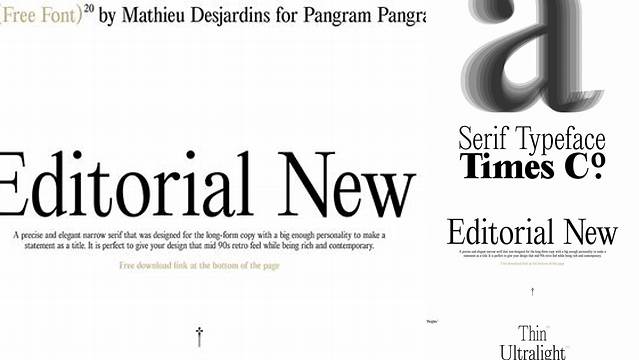
PP Editorial: Free Font Download For Stunning Designs
Are you guys on the lookout for a fresh and stylish font to spice up your design projects? Well, you've landed in the right spot! Let's dive into the world of PP Editorial, a brand-new font family that's making waves in the design community. This font is not only visually appealing but also available for free download. In this article, we'll explore everything you need to know about PP Editorial, from its unique features and design inspirations to how you can use it to enhance your creative endeavors. So, buckle up and get ready to discover a font that might just become your new favorite!
What Makes PP Editorial Special?
PP Editorial is more than just another font; it's a carefully crafted typeface designed to bring a touch of elegance and modernity to any project. This font family boasts a versatile range of weights and styles, making it suitable for a wide array of applications, from editorial layouts and branding to web design and user interfaces. Its clean lines and balanced proportions ensure readability, while its subtle quirks add character and charm. Whether you're working on a sleek corporate identity or a vibrant magazine spread, PP Editorial has the flexibility to adapt and shine.
One of the key features of PP Editorial is its attention to detail. The designers have meticulously crafted each glyph to ensure consistency and harmony across the entire family. This means that whether you're using the light or bold weights, you'll find a cohesive and polished look. The font also includes a comprehensive set of ligatures and alternates, allowing you to add a touch of uniqueness and flair to your typography. These subtle details can make a big difference, elevating your designs from good to great. Furthermore, the font supports a wide range of languages, making it a truly global typeface.
The inspiration behind PP Editorial is rooted in the classic editorial designs of the past, but with a contemporary twist. The font draws from the timeless elegance of traditional serif typefaces while incorporating modern sensibilities. This blend of classic and contemporary elements gives PP Editorial a distinct personality, making it both familiar and fresh. The designers have also paid close attention to the technical aspects of the font, ensuring that it performs well across different media and platforms. This means that you can use PP Editorial with confidence, knowing that it will look great in print, on the web, and in digital applications.
How to Use PP Editorial in Your Projects
Now that we've explored what makes PP Editorial special, let's talk about how you can use it in your projects. This font family is incredibly versatile, making it suitable for a wide range of design applications. Whether you're working on a website, a branding project, or a print publication, PP Editorial can help you create visually stunning and effective designs. Here are some ideas to get you started:
Branding
When it comes to branding, typography plays a crucial role in conveying your brand's personality and values. PP Editorial can be an excellent choice for creating a sophisticated and modern brand identity. Its clean lines and balanced proportions make it ideal for logos, wordmarks, and other branding elements. Consider using the bolder weights for headlines and the lighter weights for body text to create a visual hierarchy. The font's subtle quirks will add character to your brand, making it memorable and distinctive. For a cohesive look, pair PP Editorial with complementary colors and imagery that reflect your brand's identity.
Editorial Design
As the name suggests, PP Editorial is perfectly suited for editorial design. Whether you're working on a magazine, a newspaper, or a book, this font can help you create layouts that are both visually appealing and easy to read. The font's readability makes it ideal for long-form text, while its elegant design adds a touch of sophistication. Use the different weights and styles to create visual interest and guide the reader through the content. Consider using the italics for captions and the bold weights for headlines and subheadings. PP Editorial's versatility allows you to create dynamic and engaging layouts that capture the reader's attention.
Web Design
In the world of web design, typography is essential for creating a positive user experience. PP Editorial is an excellent choice for websites, as its clean lines and balanced proportions ensure readability on screens of all sizes. Use the font for headings, body text, and navigation menus to create a cohesive and professional look. The font's modern aesthetic will give your website a contemporary feel, while its subtle details will add character and charm. When using PP Editorial on the web, make sure to optimize the font for web use to ensure fast loading times. Consider using web font formats such as WOFF and WOFF2 for optimal performance.
We've covered everything from what makes PP Editorial special to how you can use it in your projects and where to download it for free. Hopefully, this article has given you a comprehensive understanding of this fantastic font family and inspired you to explore its potential. Remember, typography is a crucial element of design, and choosing the right font can make a big difference in the overall impact of your work. PP Editorial is a font that's worth considering for your next project, so don't hesitate to download it and start experimenting. Happy designing, guys! We hope you found this article helpful and informative. Feel free to share it with your fellow designers and spread the word about PP Editorial. Let's continue to support the creative community and make high-quality design accessible to everyone. And as always, stay tuned for more exciting updates and resources from the world of design. Until next time, keep creating and keep inspiring!